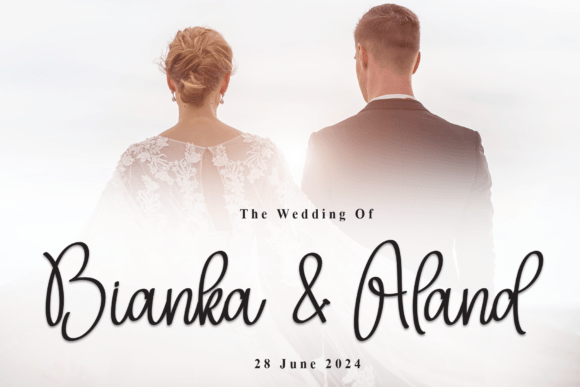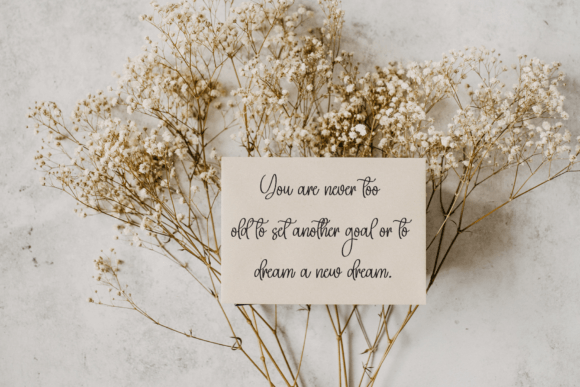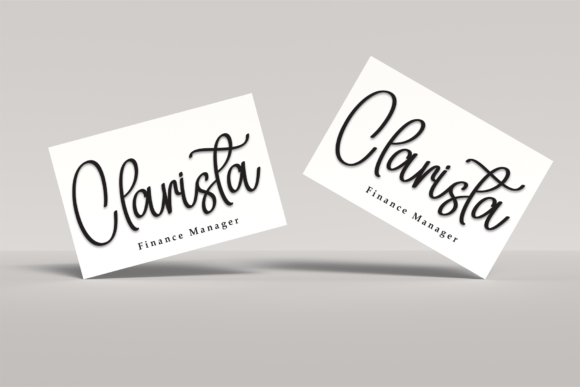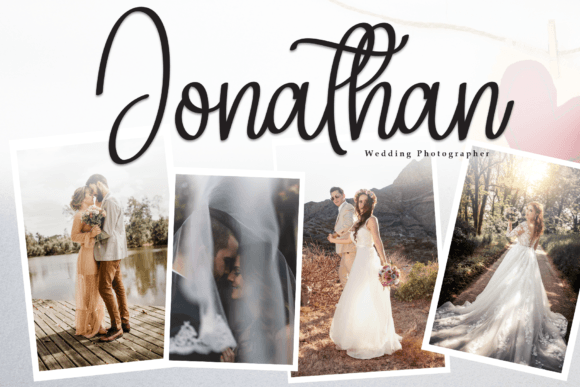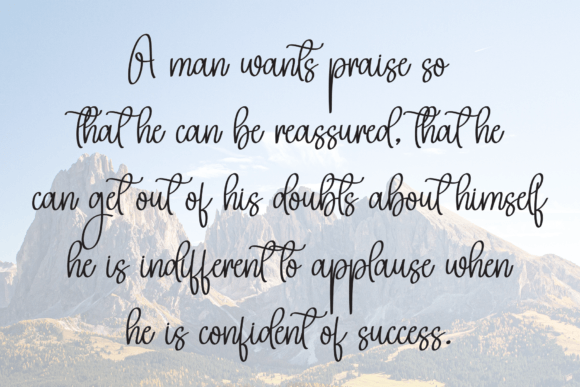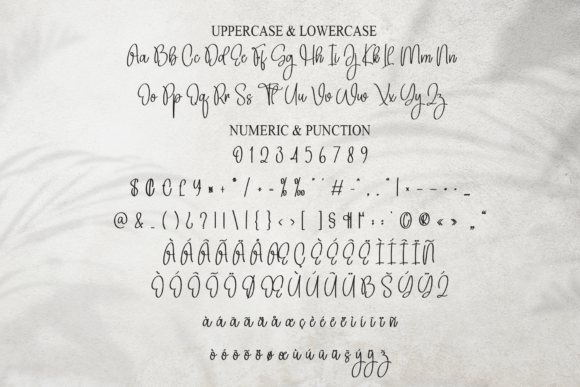
Introduction to Samantha Calligraph Font Font
Fonts play a crucial role in design, and the Samantha Calligraph Font font is a typeface that brings both character and versatility to any project. Whether you’re working on a branding project, a website, or a print design, the Samantha Calligraph Font font offers a unique style that can elevate your work.
โSamantha Calligraphโ is a stylish font that mimics elegant handwriting.
Each letter flows smoothly, like someone writing with a skilled hand and a classic pen It’s perfect for adding a touch of sophistication and beauty to your projects, whether it’s invitations, cards, or anything that needs a graceful touch of writing.
Key Features of Samantha Calligraph Font Font
- โ High-quality typeface designed for professional use
- โ Includes a wide range of glyphs and characters
- โ Ideal for logos, branding, websites, and print
Why Choose Samantha Calligraph Font Font?
The Samantha Calligraph Font font is more than just a typeface โ it’s a design tool that helps you communicate your message with style and clarity. Its unique character set and versatile design make it suitable for a wide range of applications, from elegant invitations to bold headlines.
With its carefully crafted letterforms and balanced proportions, the Samantha Calligraph Font font ensures readability and visual appeal across all mediums.
What makes Samantha Calligraph Font font special?
The Samantha Calligraph Font font stands out with its unique design, exceptional readability, and versatility across various design applications.